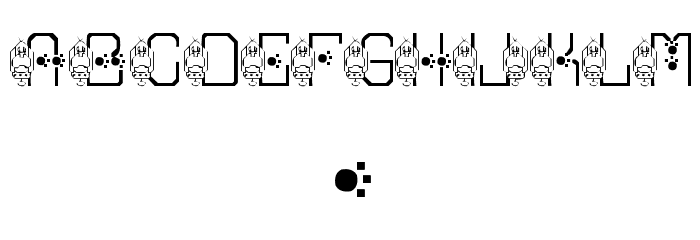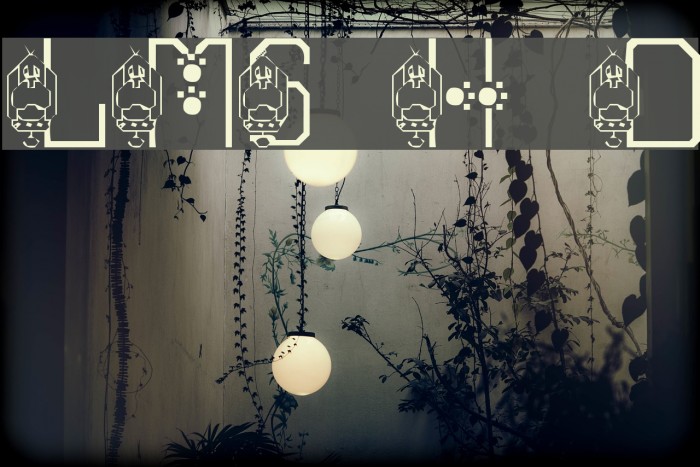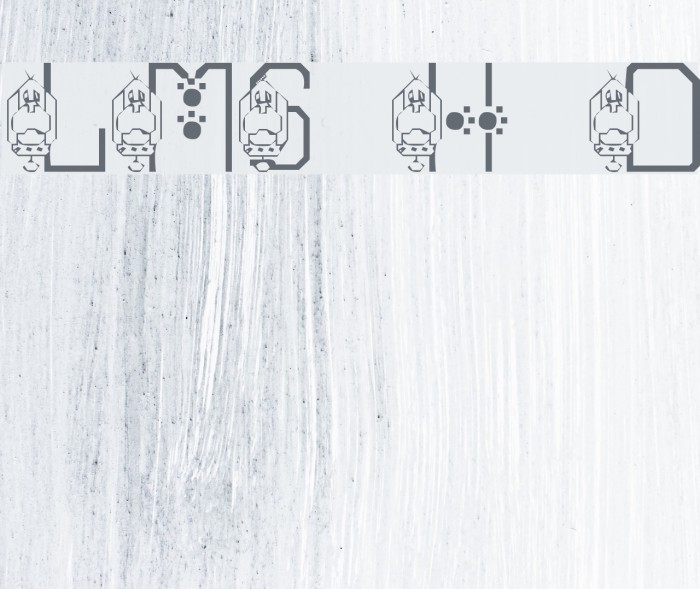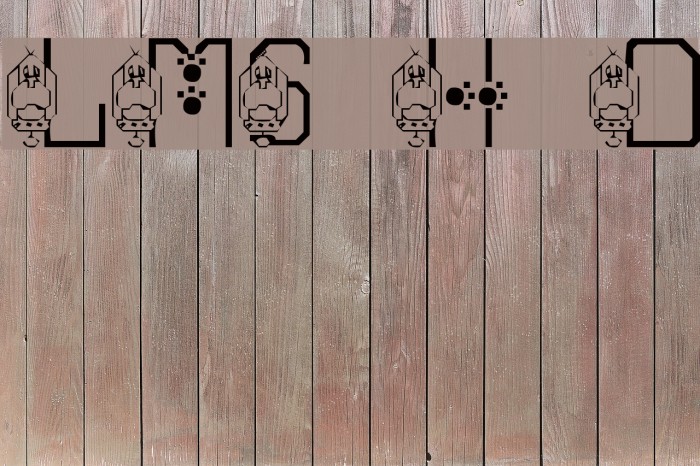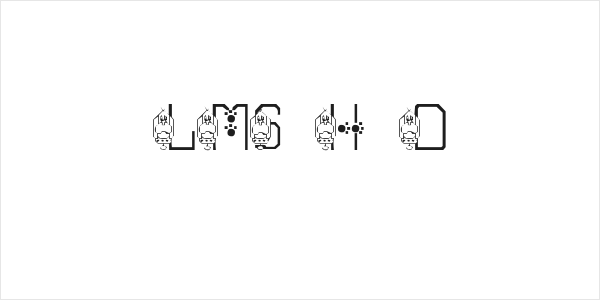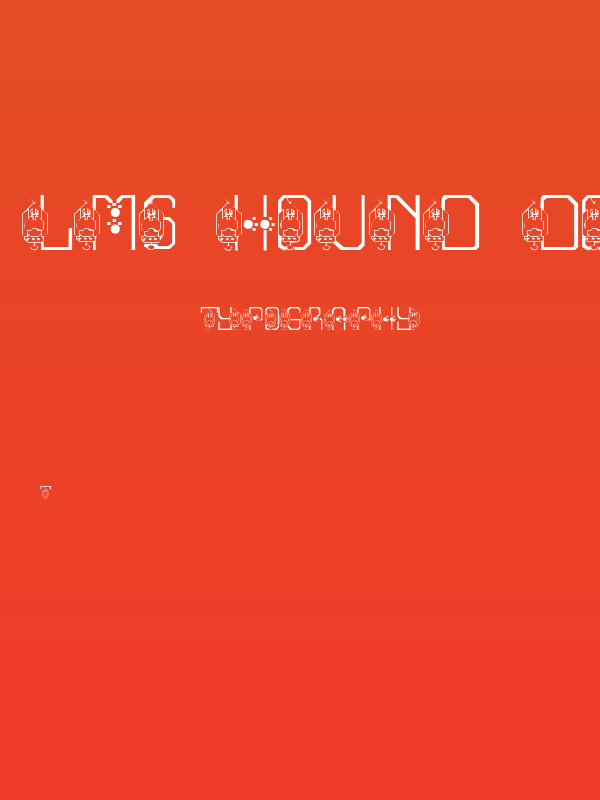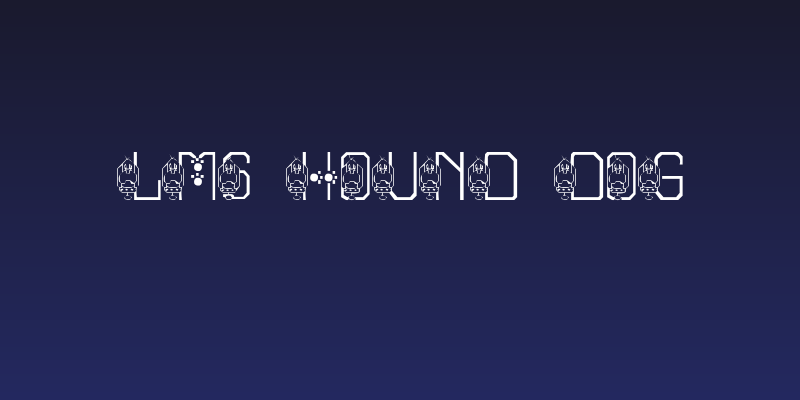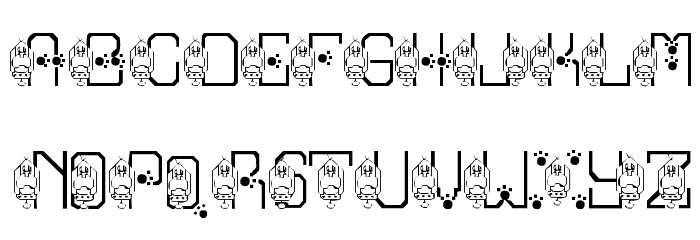
LMS Hound Dog Font
LMS Hound Dog Description
This playful and whimsical font features a unique design where each character is integrated with a cartoonish dog motif. The letters are bold and outlined, giving them a strong presence, while the dog illustrations add a touch of humor and creativity. The font is highly decorative, making it ideal for projects that require a fun and engaging visual element. The characters are evenly spaced, ensuring readability despite the intricate designs. This font is perfect for children's books, pet-related branding, or any project that aims to convey a sense of fun and playfulness.
| Overall Style | Playful, Whimsical, Decorative |
| Proposed Projects | Children's books, pet branding, playful posters, greeting cards. |